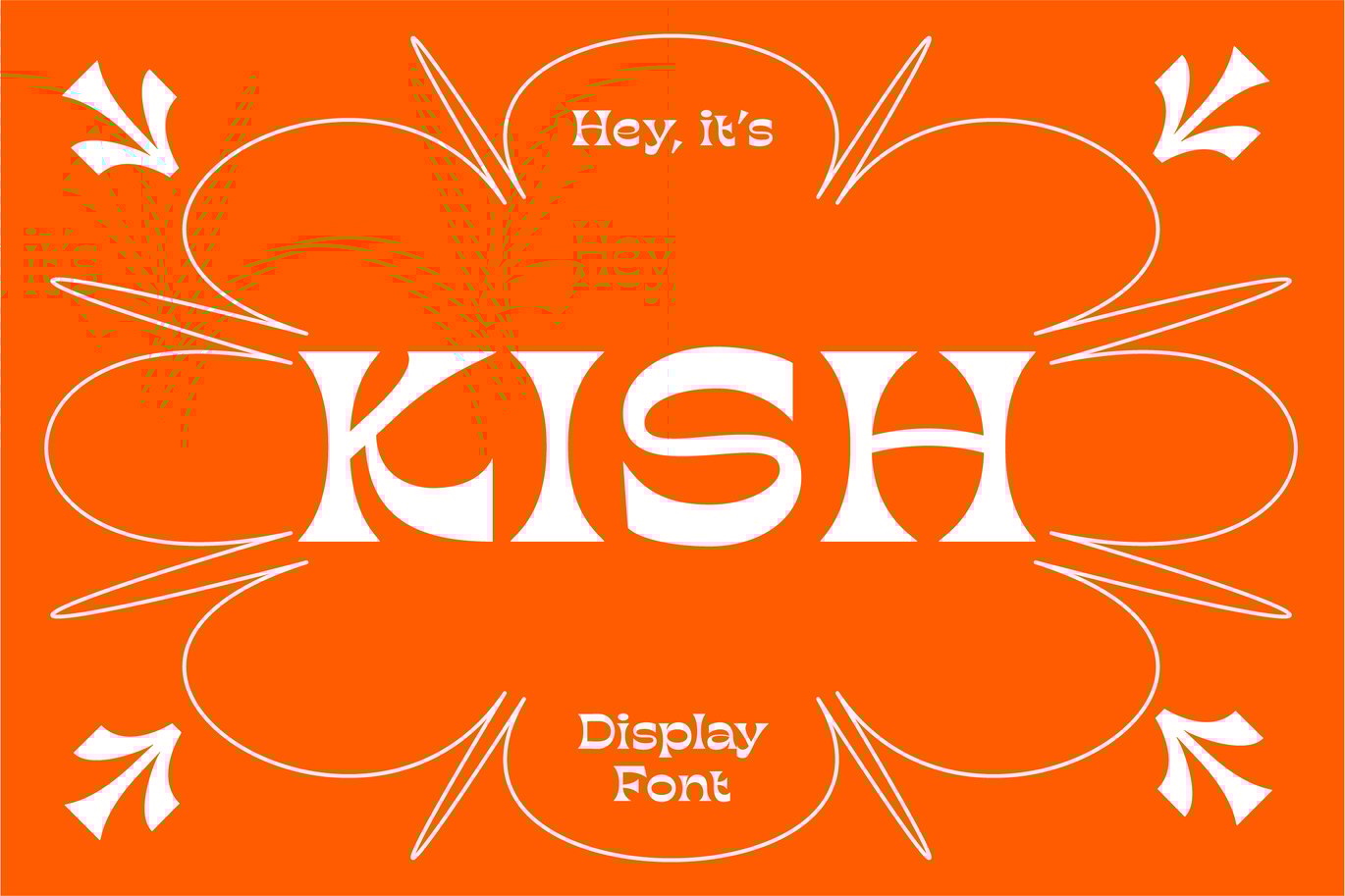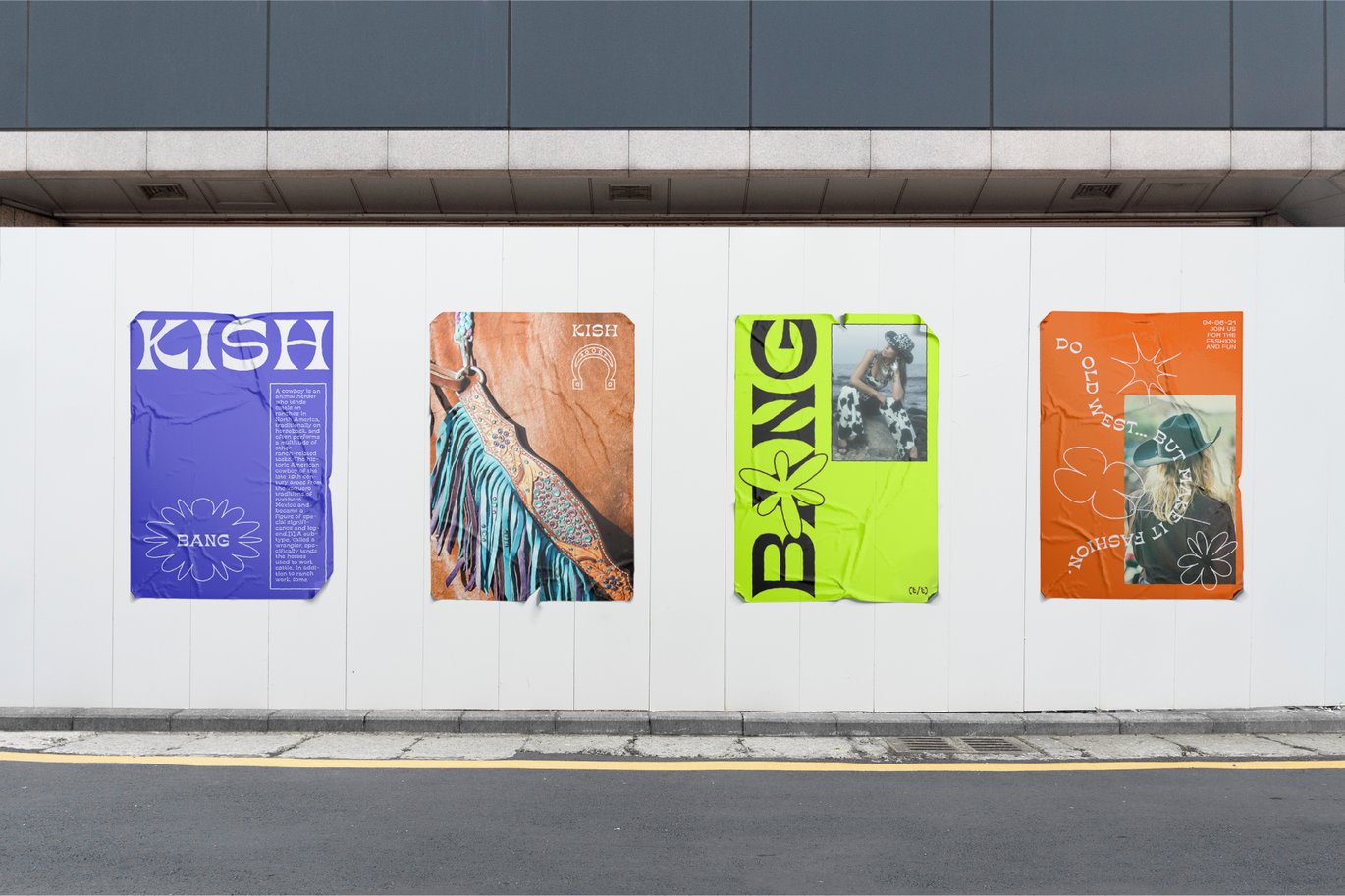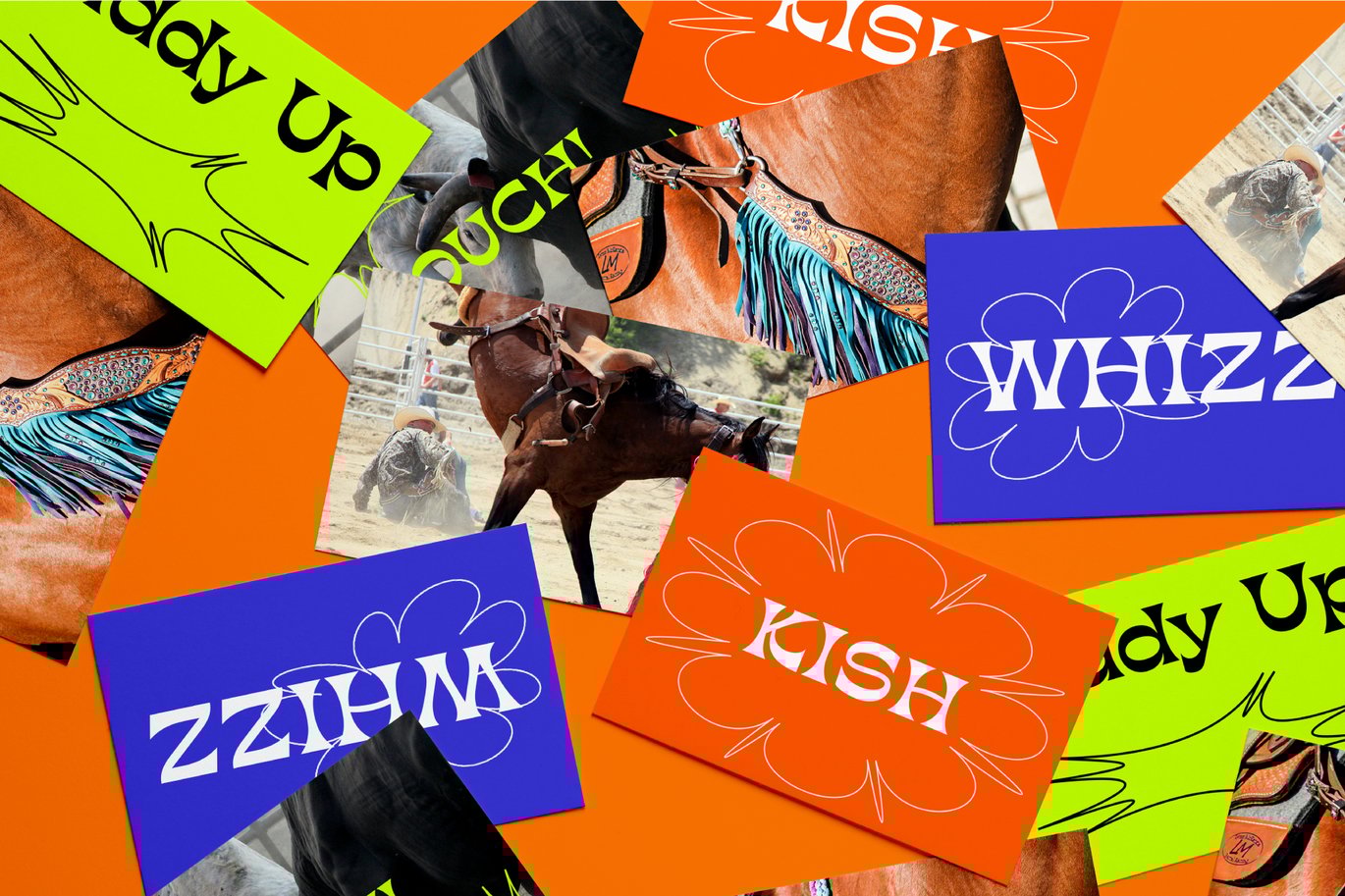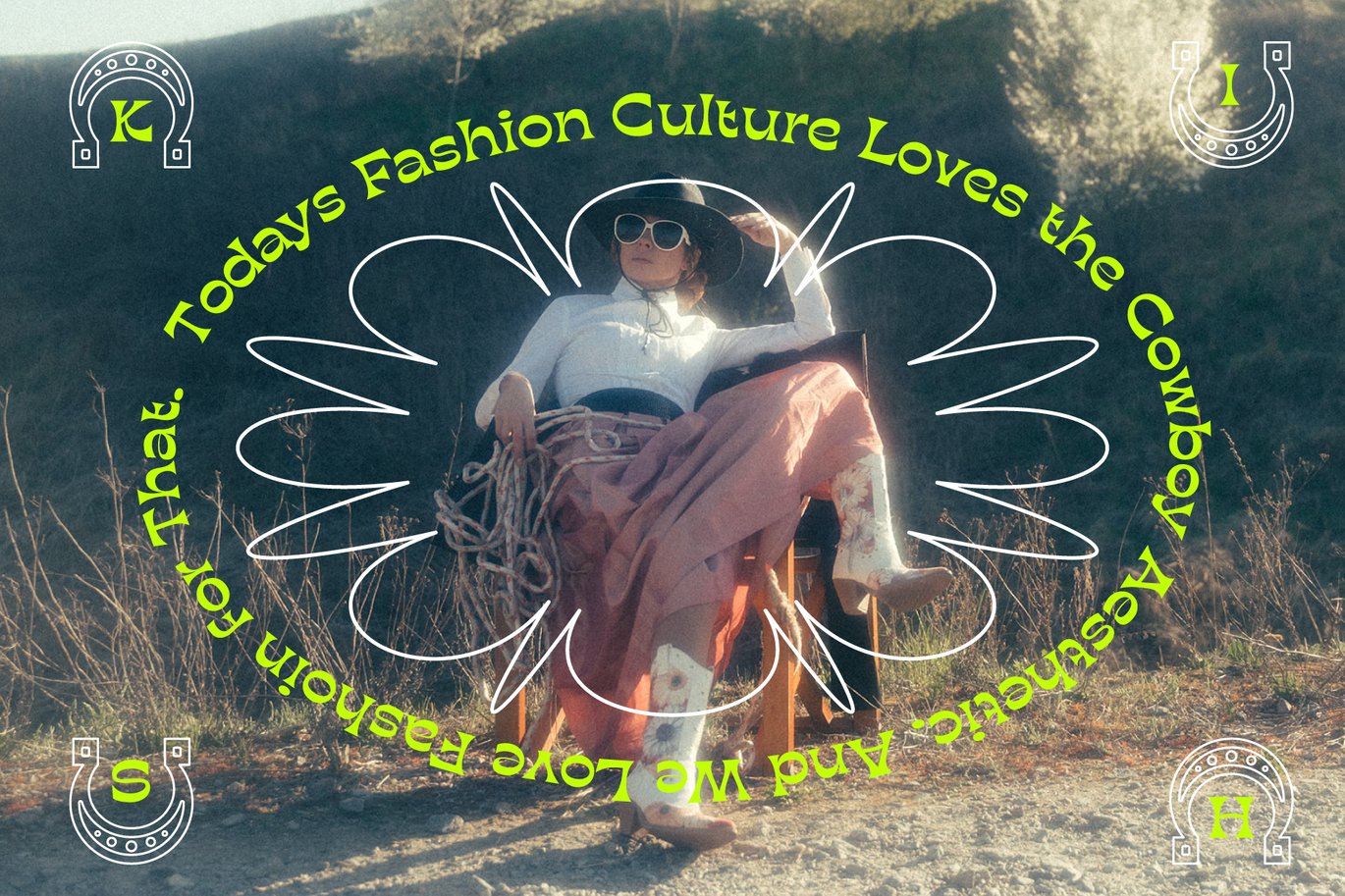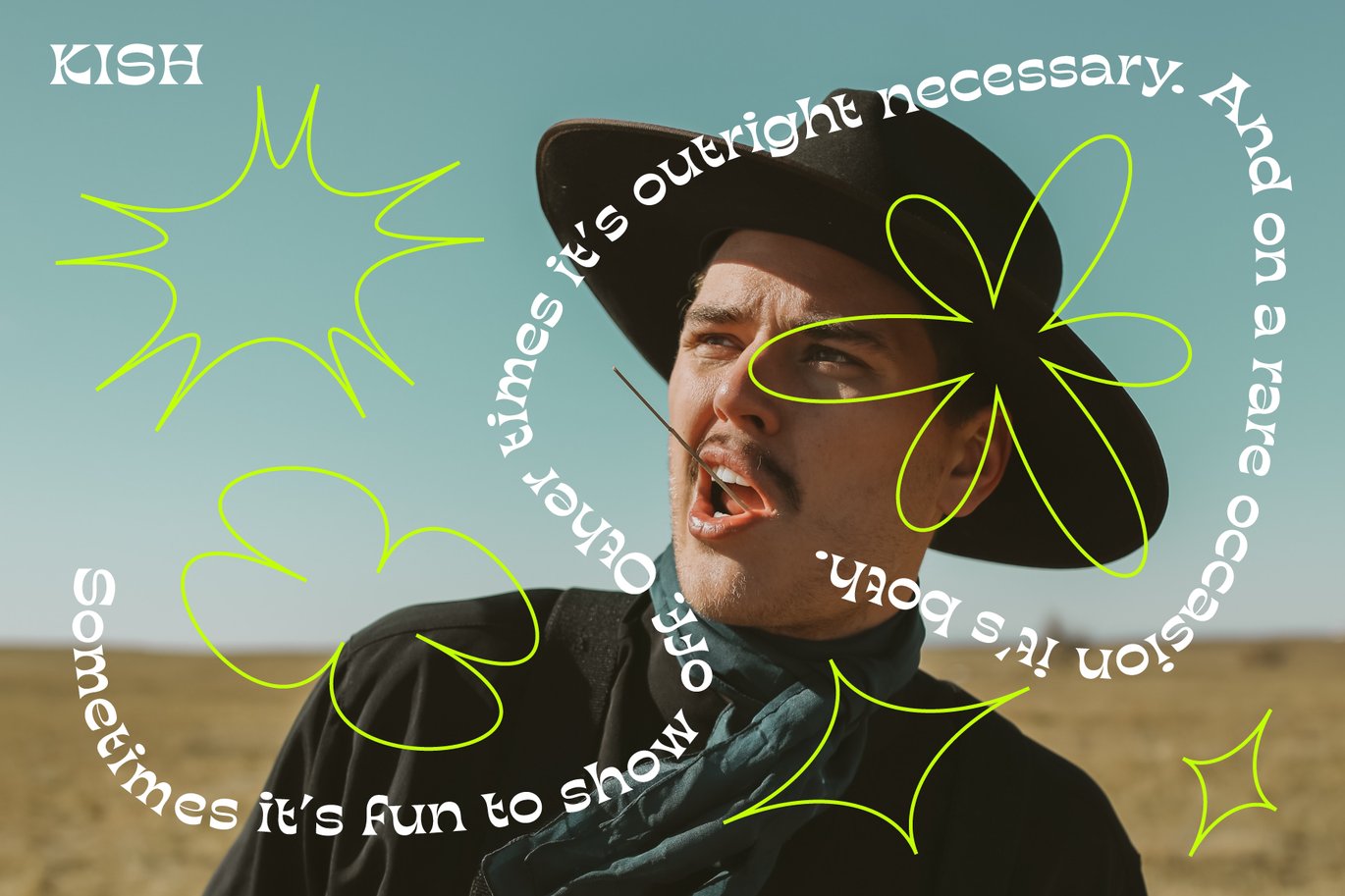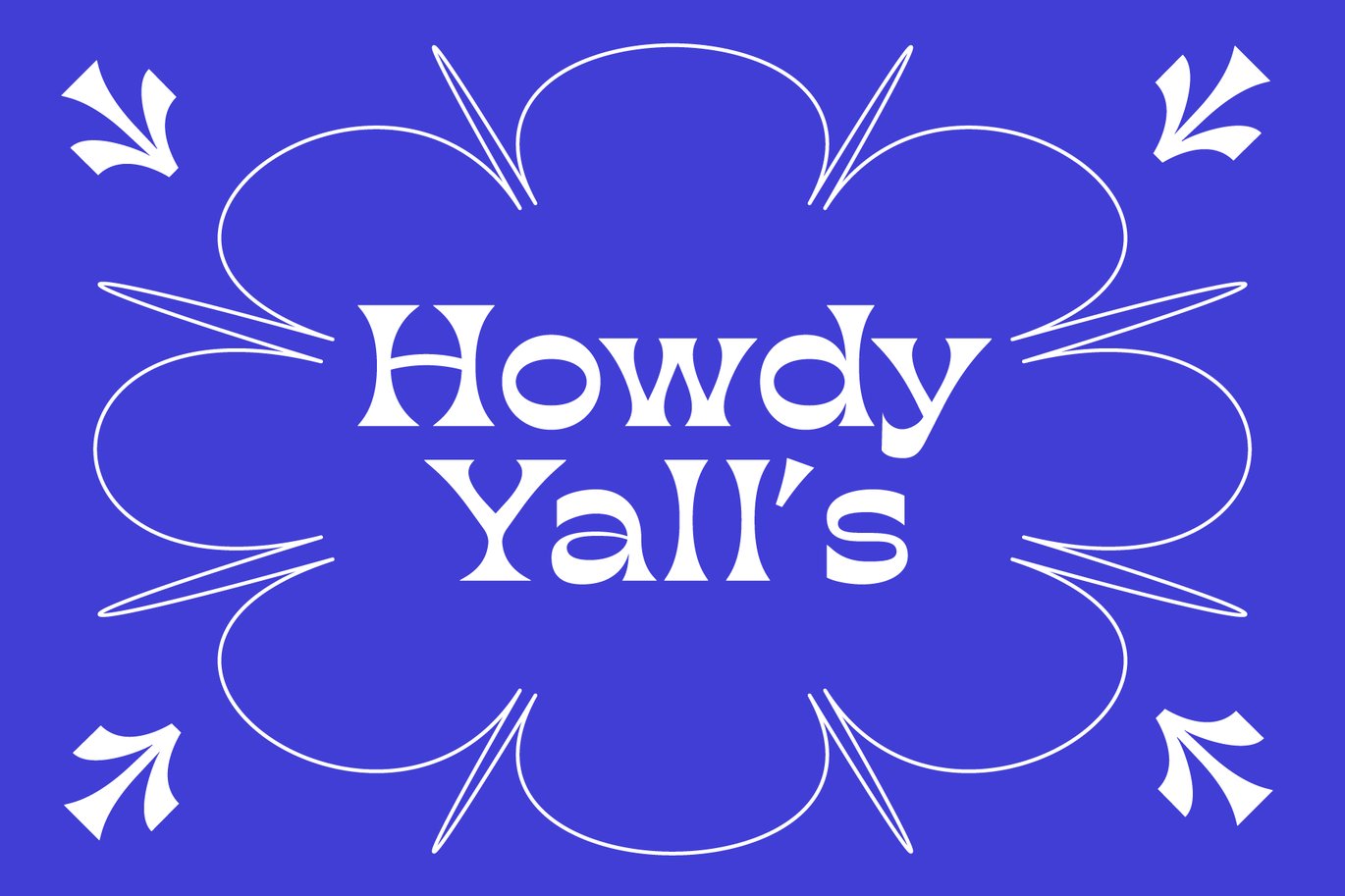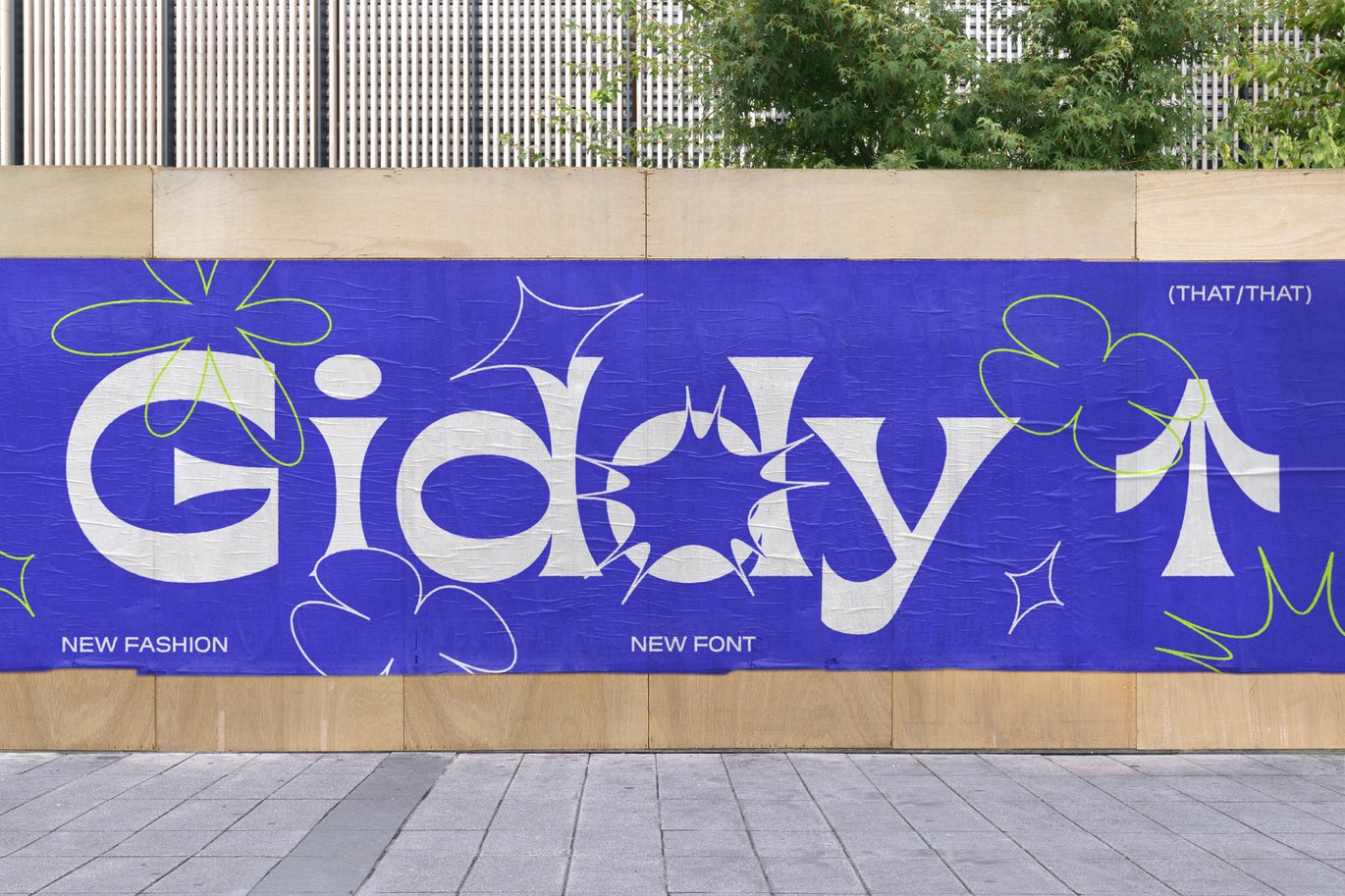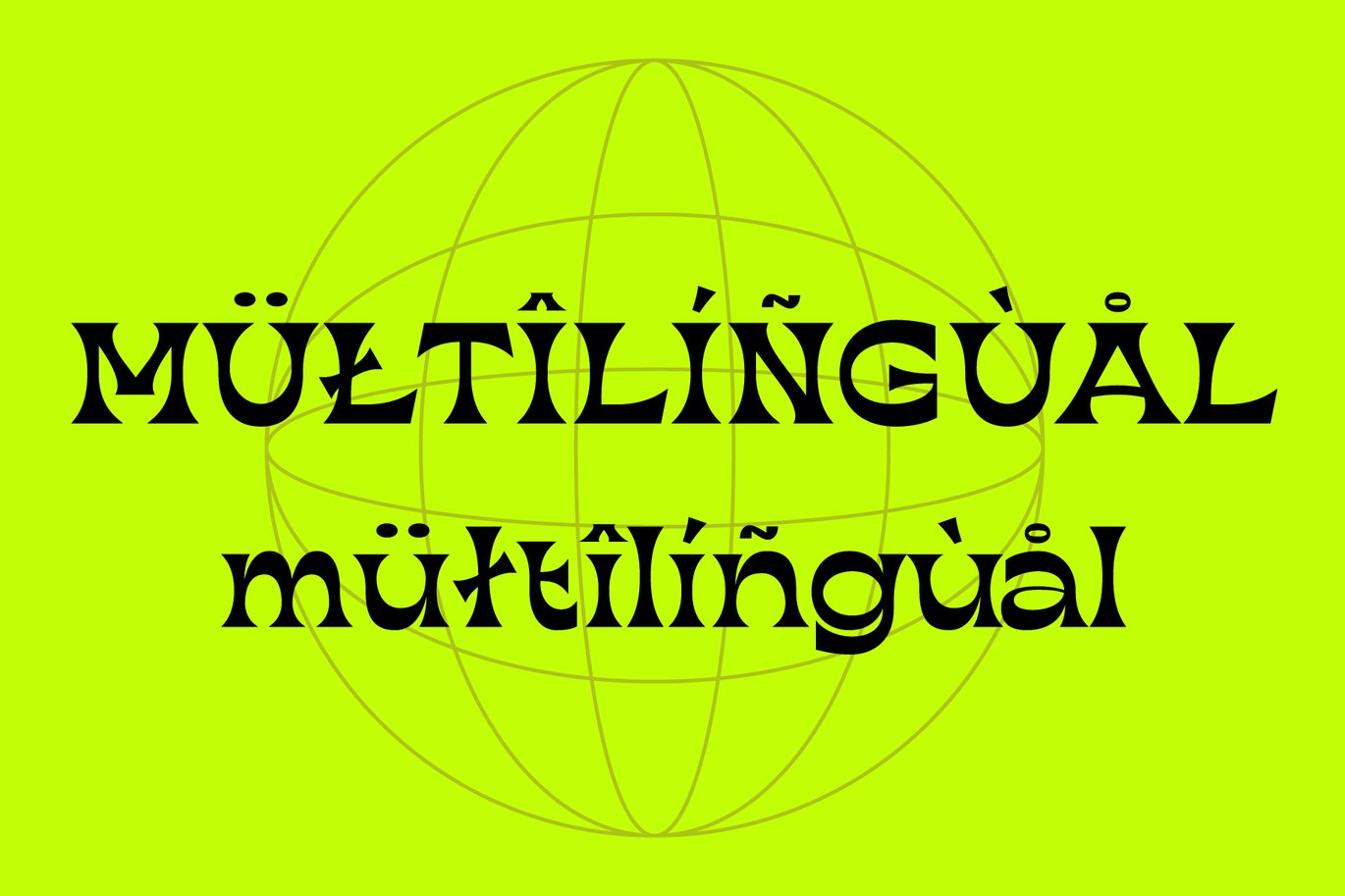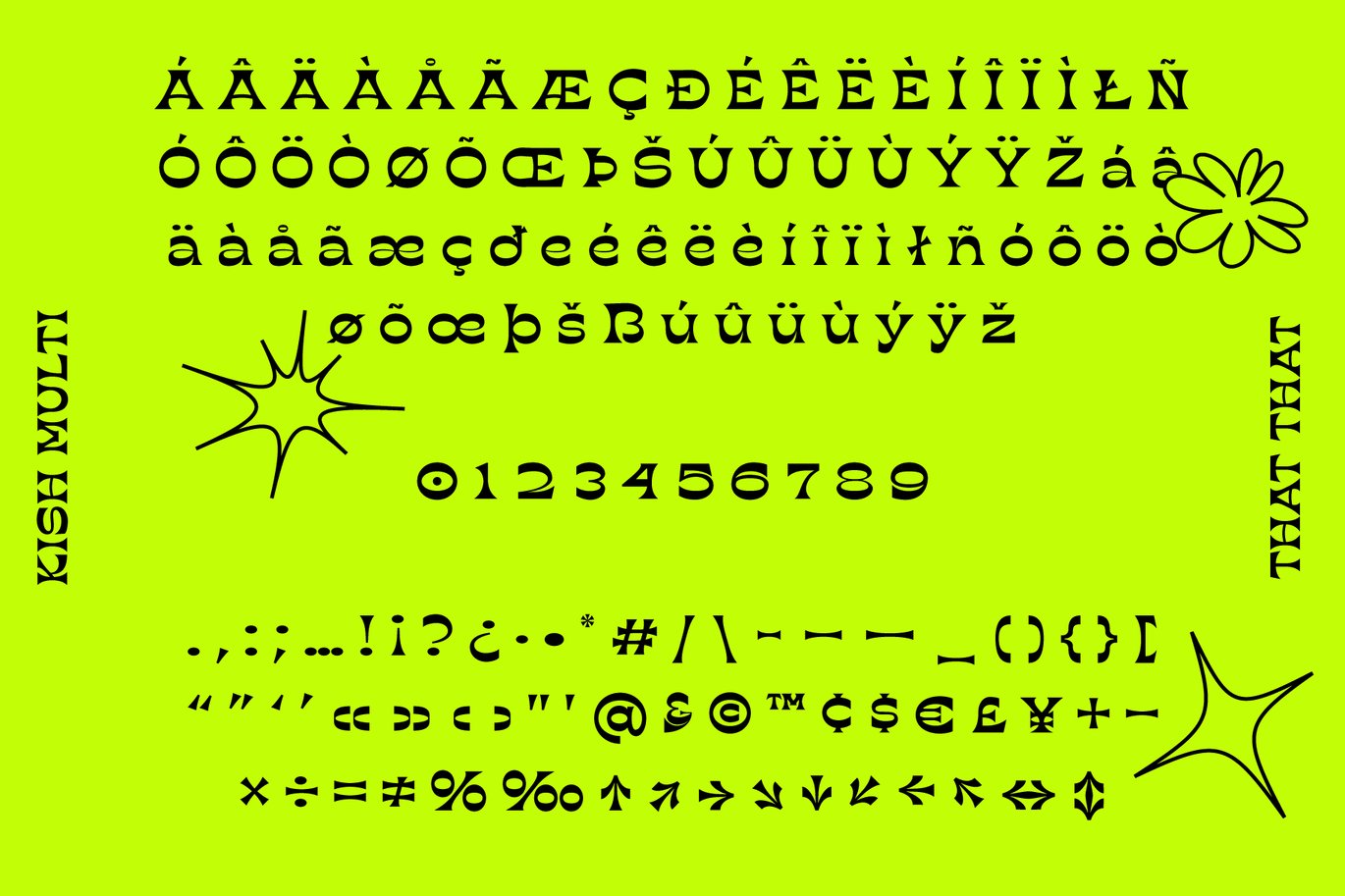
Western Font Kish
KISH is a super quirky display type with reverse contrast. Imagine if the old west and the 70s had a lovechild with a sense of humor; now imagine that that child was a display font. That’s KISH. It’s the perfect typeface for adding sophisticated playfulness to any design project.